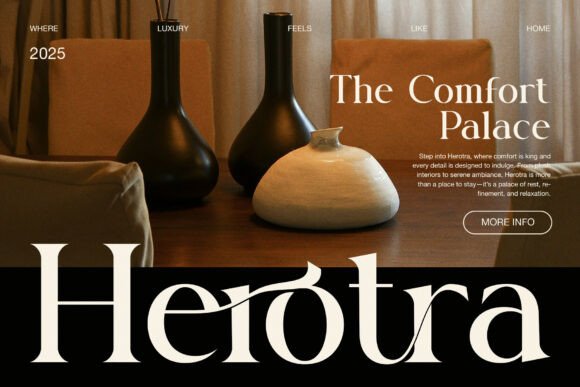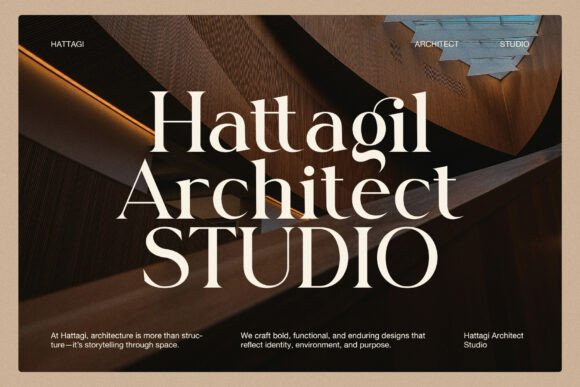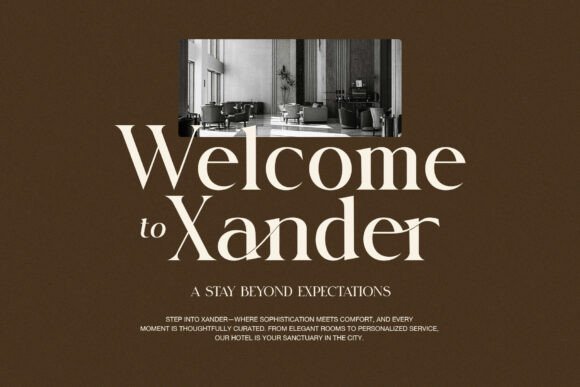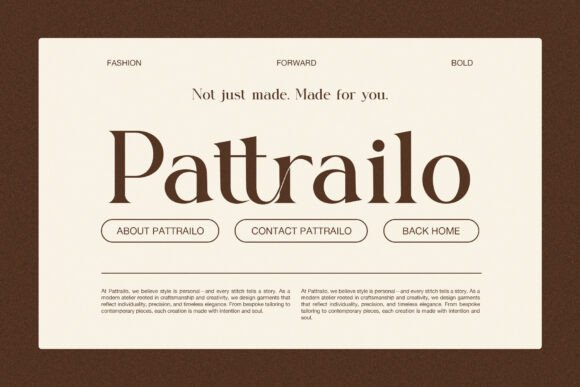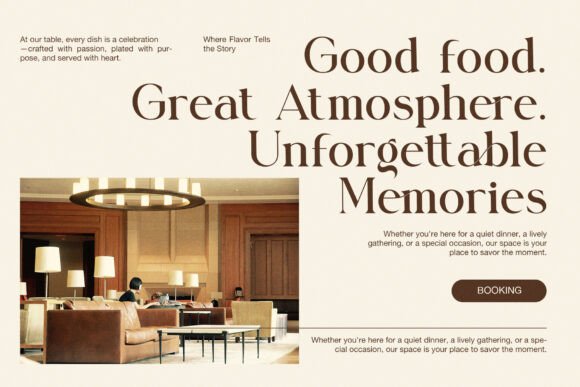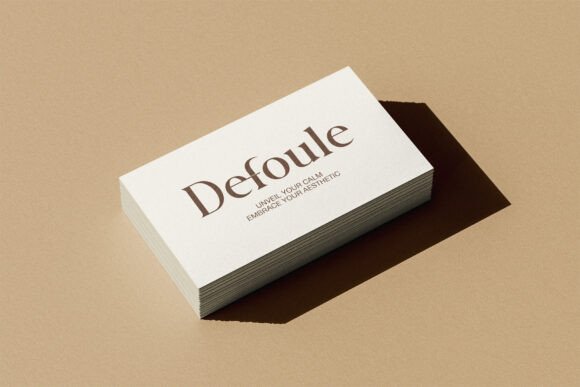
Introducing Gitrong Elegant Serif Font: Elevate Your Designs with Timeless Elegance
In the world of typography, a font can make or break a design. For designers and crafters seeking a sophisticated and modern serif typeface, look no further than Gitrong Elegant Serif Font. This meticulously crafted font brings elegance and uniqueness to any project, effortlessly merging classic charm with contemporary appeal.
The Perfect Blend of Style and Clarity
Gitrong’s letterforms are designed with precision and care, featuring graceful serifs that add a touch of luxury and professionalism to any design. Whether you’re working on a logo, brand identity, or website, Gitrong provides the perfect balance of style and clarity. Its versatile design makes it an excellent choice for a wide range of applications, from magazines and advertisements to product packaging and more.
Elevate Your Brand with Gitrong’s Timeless Appeal
In the world of fashion, boutiques, and luxury products, every detail counts. Gitrong’s elegant curves and strong structure command attention without compromising readability, making it the perfect choice for brands seeking a polished and distinctive look. The font’s timeless appeal elevates print layouts, product labels, and marketing materials, giving your brand a lasting impression.
Key Features of Gitrong Elegant Serif Font
• Sophisticated and modern serif typeface: Gitrong’s unique design sets it apart from other fonts, making it perfect for projects that demand both style and clarity.
• Meticulously crafted letterforms: Each letterform is designed with precision and care, ensuring a high level of readability and elegance.
• Graceful serifs: Gitrong’s serifs add a touch of luxury and professionalism to any design.
• Versatile design: Gitrong is suitable for a wide range of applications, from magazines and advertisements to product packaging and more.
• Timeless appeal: Gitrong’s classic charm and contemporary appeal ensure that your designs will stand the test of time.
Why Choose Gitrong Elegant Serif Font?
With Gitrong, you can:
• Enhance your brand identity: Gitrong’s unique design helps you establish a strong and recognizable brand image.
• Elevate your designs: Gitrong’s sophisticated and modern design ensures that your projects stand out from the crowd.
• Improve readability: Gitrong’s clear and elegant letterforms ensure that your message is conveyed with clarity and precision.
• Add a touch of luxury: Gitrong’s graceful serifs and timeless appeal add a touch of sophistication and elegance to any design.
Gitrong Elegant Serif Font is the perfect choice for designers and crafters seeking a sophisticated and modern serif typeface. With its meticulously crafted letterforms, graceful serifs, and versatile design, Gitrong effortlessly merges classic charm with contemporary appeal. Whether you’re working on a logo, brand identity, website, or marketing materials, Gitrong adds a touch of luxury and professionalism that elevates your designs to new heights.